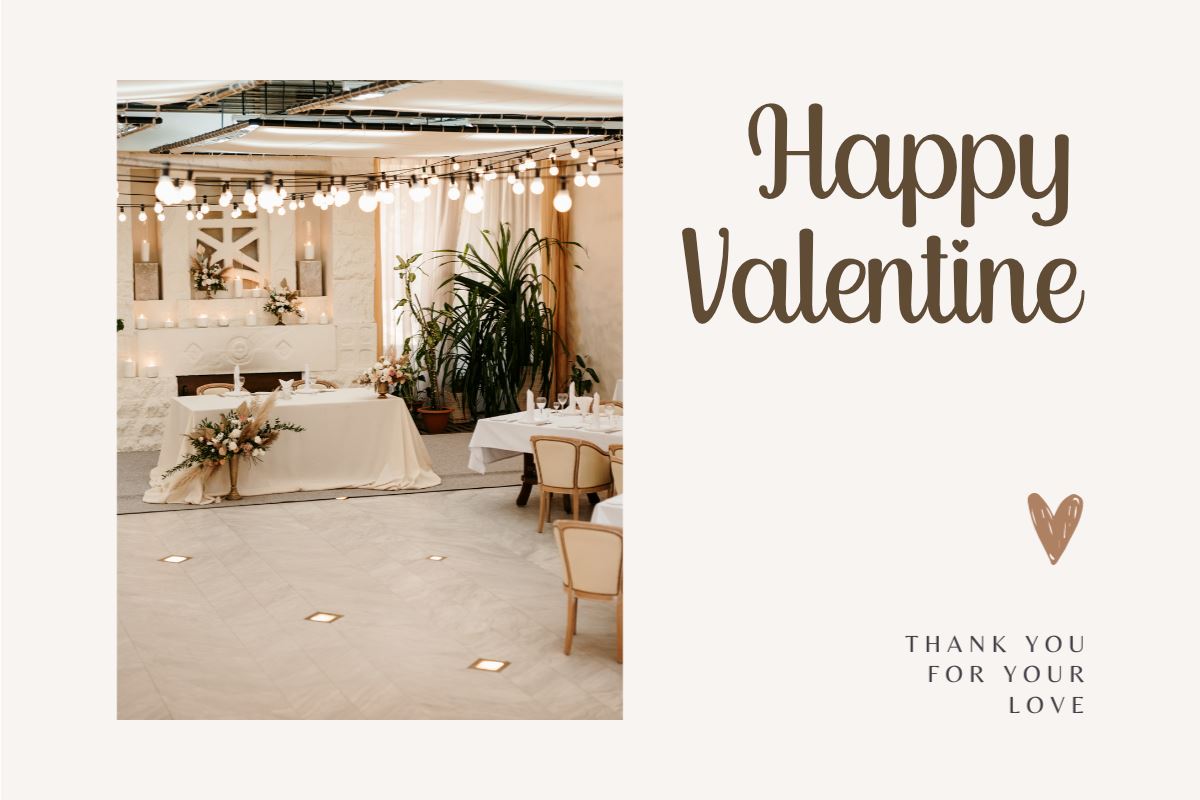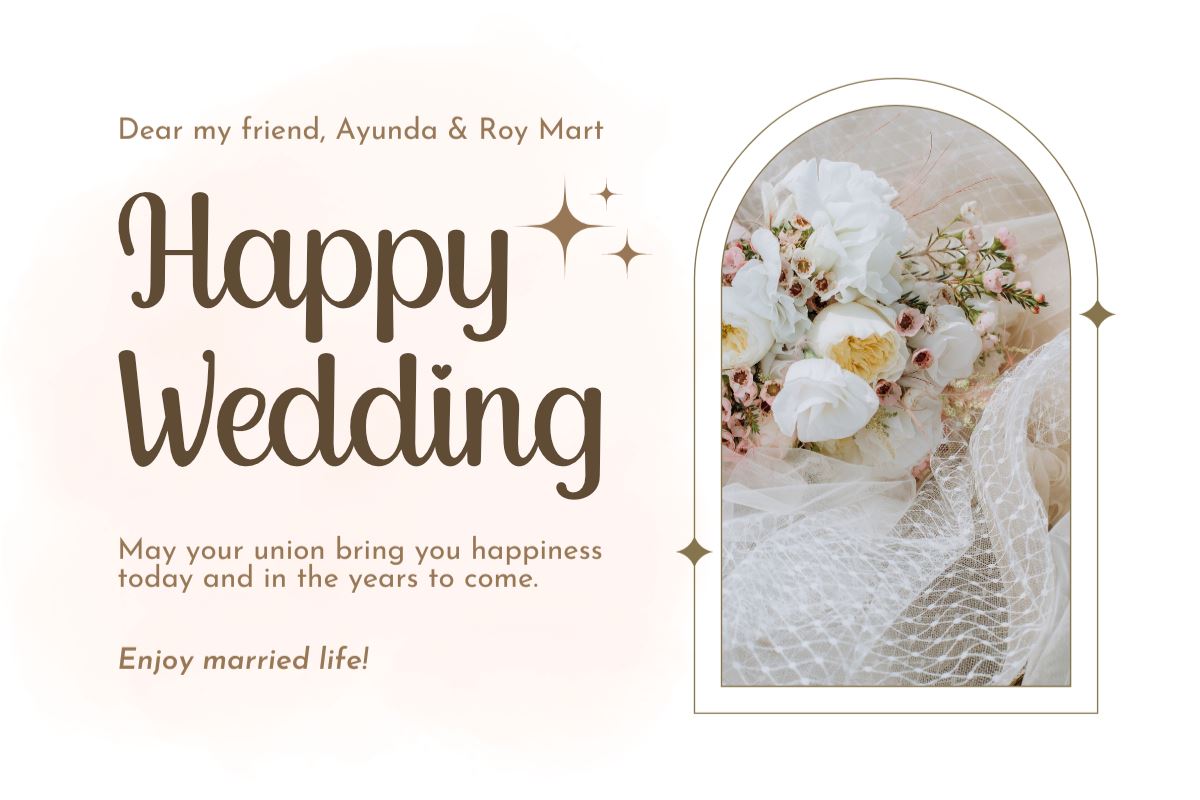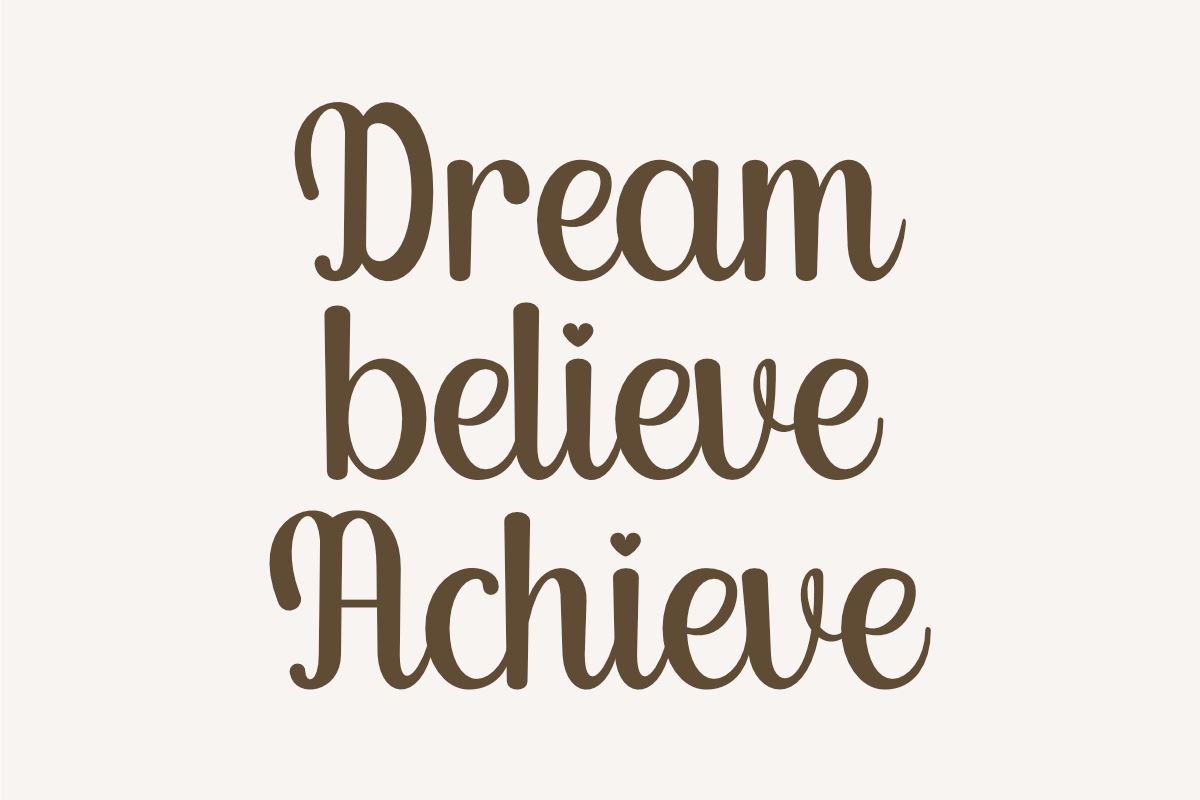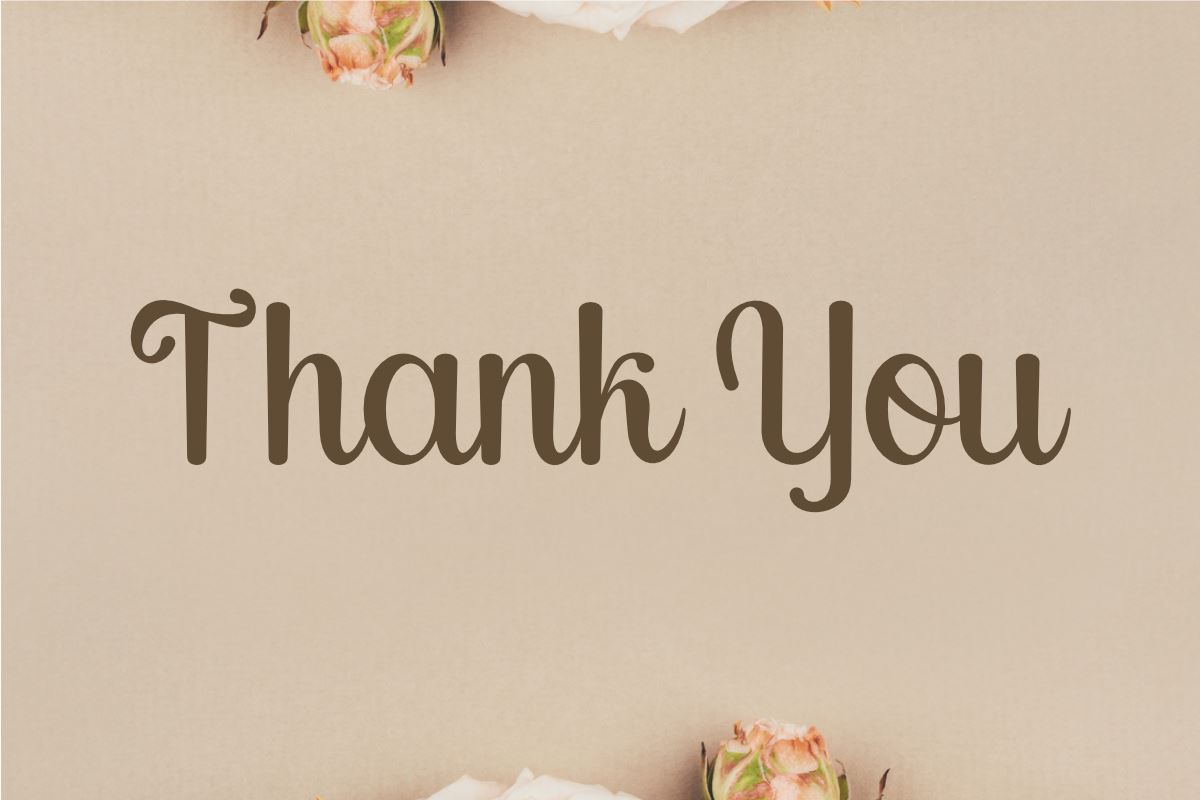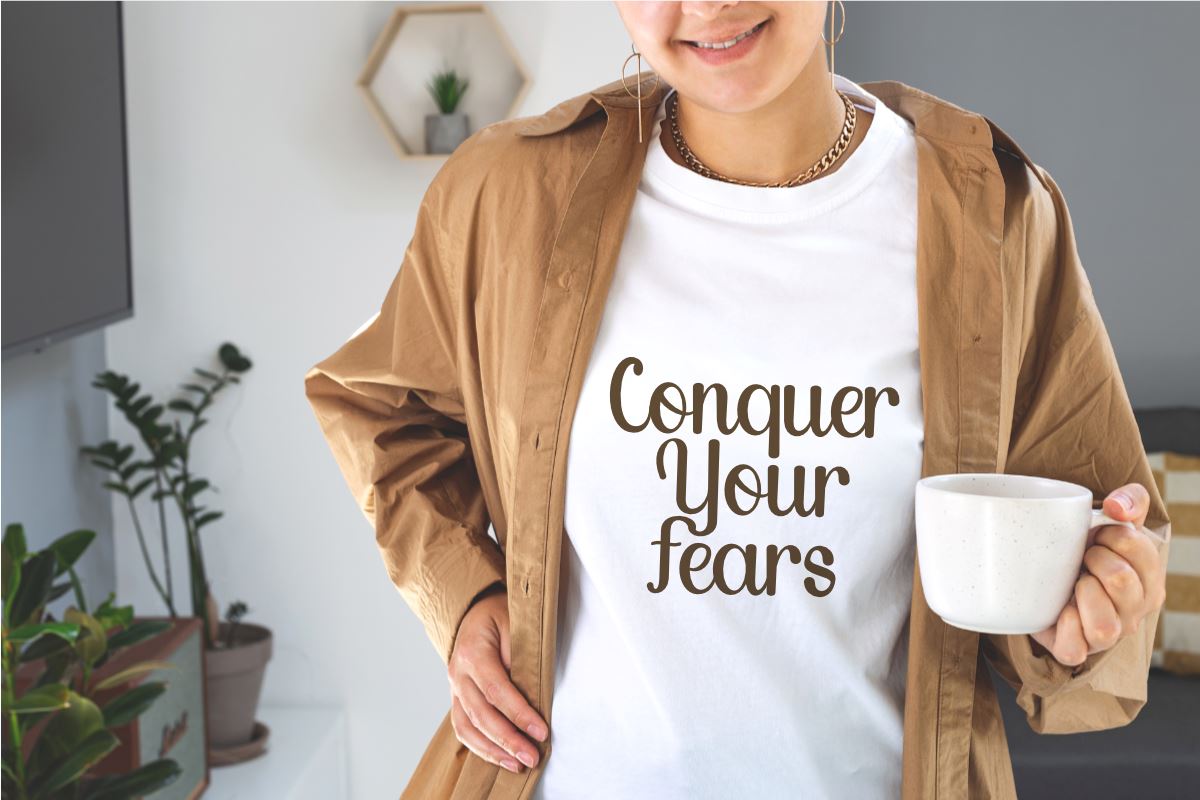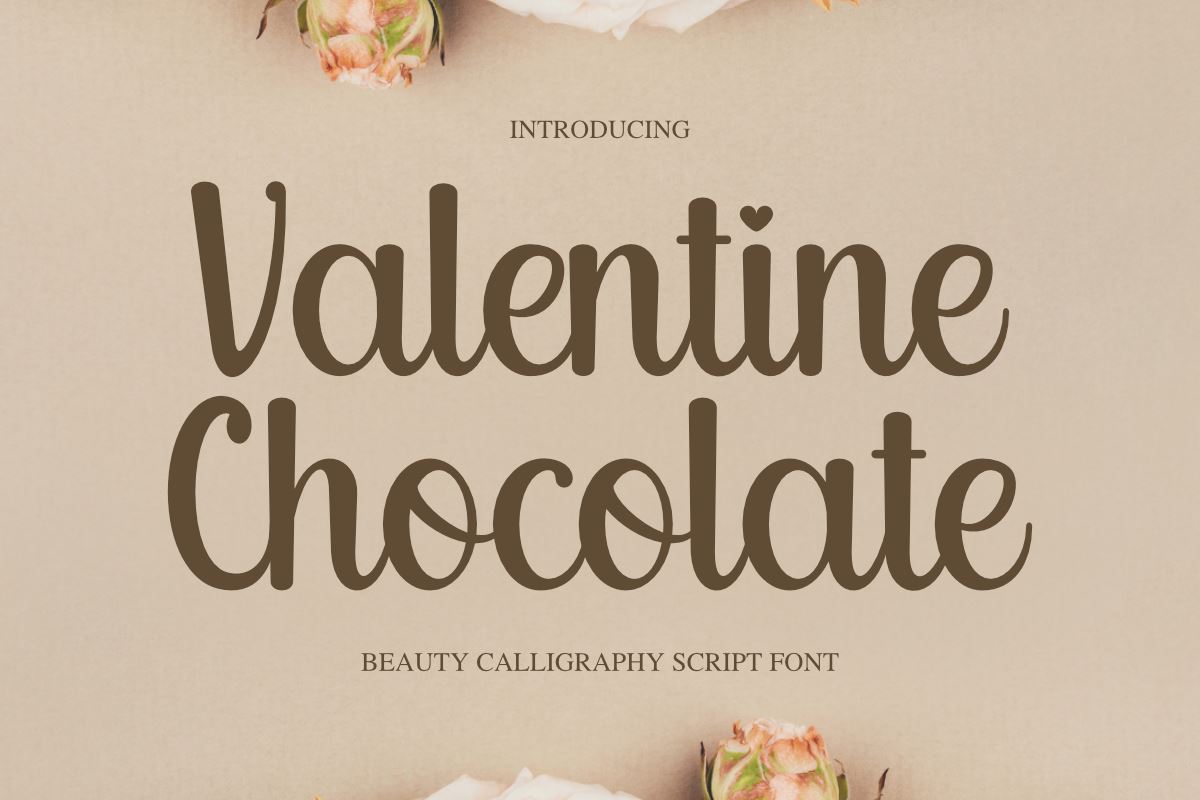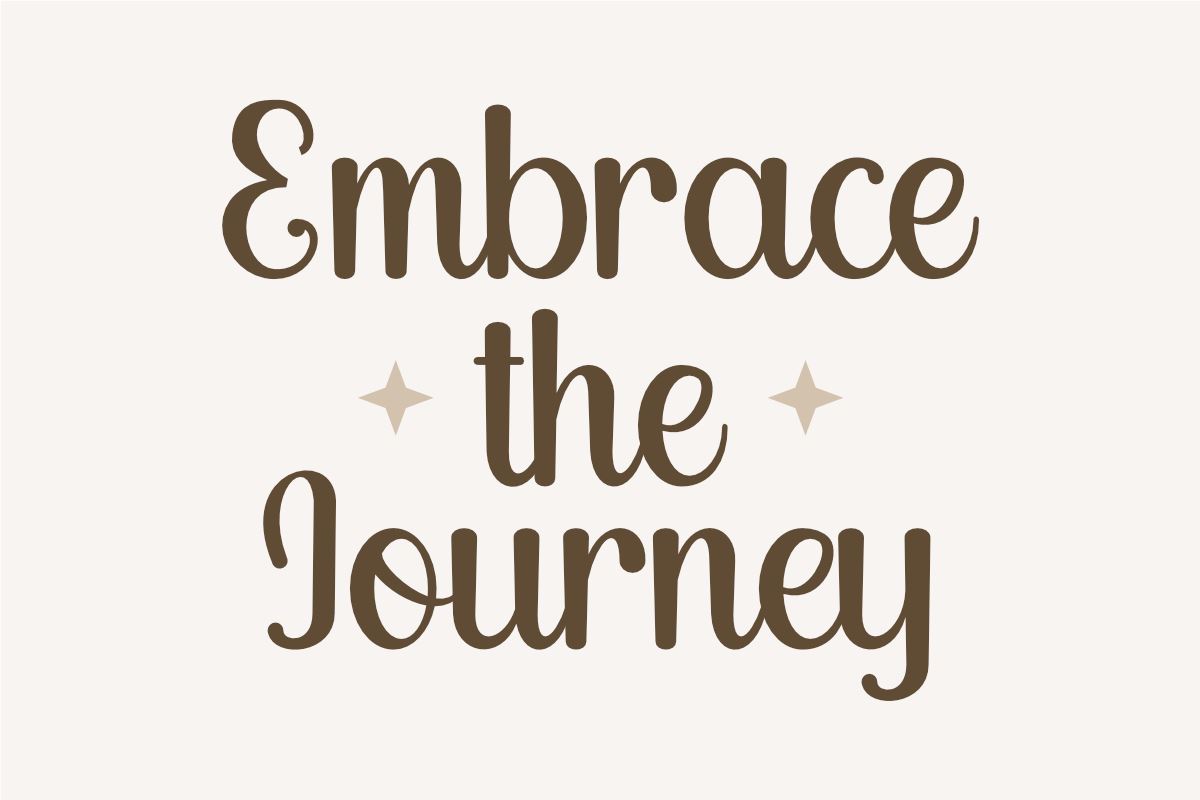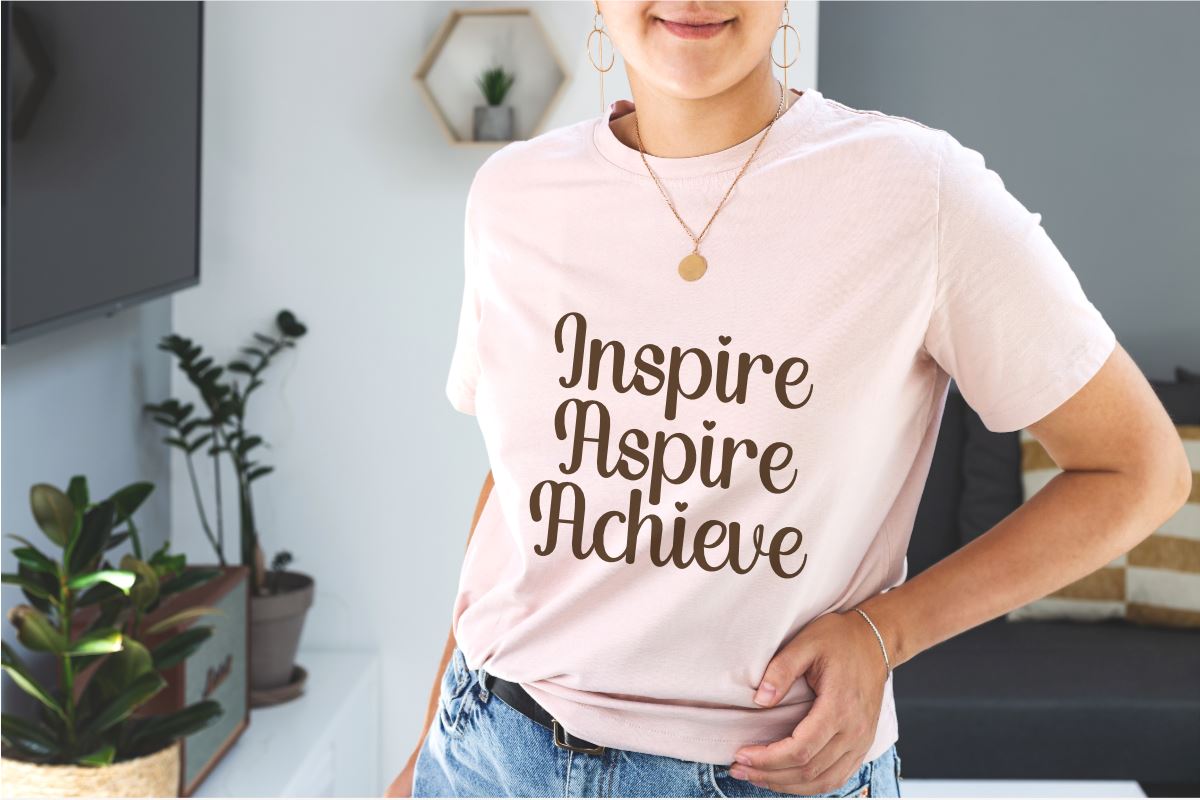
Valentine Chocolate – Beauty Calligraphy Font
About Valentine Chocolate – Beauty Calligraphy Font
Valentine Chocolate is a beautiful, elegant calligraphy script font. Its graceful strokes and flowing curves bring a touch of sophistication to your text. Perfect for invitations, weddings, Cricut, quotes, Easter, fall, thanksgiving, cards, or any project that demands a mix of style and charm, Chocolate Banana adds a sweet, luxurious feel to your designs. Enhance your typography with this fun script font for a truly subtle and fun touch.